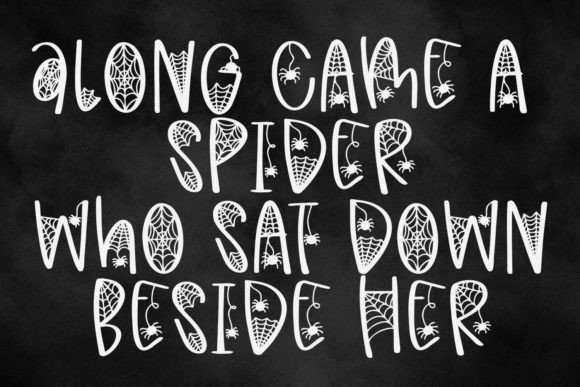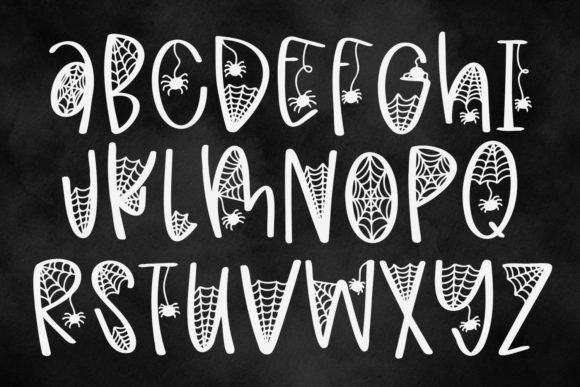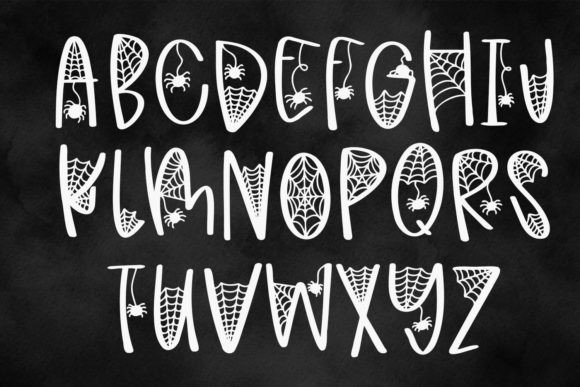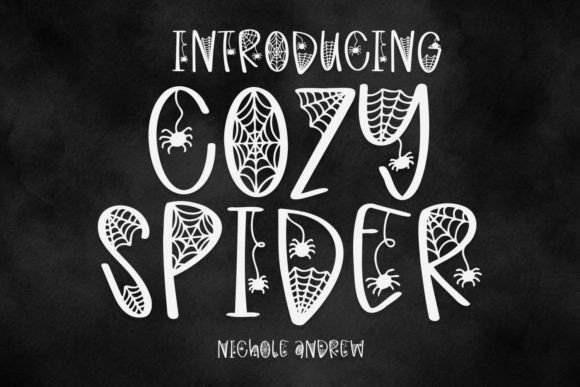
Introducing Cozy Spider Font: The Perfect Addition to Your Halloween Decorations
Are you looking for a unique and fun font to add a touch of personality to your Halloween projects? Look no further than Cozy Spider Font! This decorative font is perfect for designers and crafters who want to create spooky yet adorable designs that are sure to impress. In this article, we’ll take a closer look at Cozy Spider Font, its features, and how you can use it to take your Halloween projects to the next level.
What is Cozy Spider Font?
Cozy Spider Font is a fun and playful decorative font that features cozy little spiders and spider webs. This mostly caps-only font is designed to give your Halloween projects a fun and festive look that’s sure to delight. The font is perfect for creating eye-catching titles, headings, and other design elements that will make your projects stand out.
Key Features of Cozy Spider Font
- Unique Design: Cozy Spider Font features a unique design that combines cozy little spiders with spider webs, creating a fun and festive look that’s perfect for Halloween.
- Mostly Caps-Only: This font is mostly caps-only, making it perfect for creating bold and eye-catching titles and headings.
- Versatile: This font can be used for a wide range of Halloween projects, including party invitations, decorations, and more.
- Pair it with Other Fonts: Cozy Spider Font looks great when paired with other Halloween-themed fonts. Try pairing it with a bold sans-serif font for a fun and modern look.
- Use it for Titles and Headings: Cozy Spider Font is perfect for creating eye-catching titles and headings. Use it to add a touch of personality to your Halloween projects.
- Experiment with Colors: Cozy Spider Font looks great in a variety of colors, including orange, black, and purple. Experiment with different colors to find the perfect look for your project.
Ideas for Using Cozy Spider Font
Cozy Spider Font is a versatile font that can be used for a wide range of Halloween projects. Here are a few ideas to get you started:
- Halloween Party Invitations: Use Cozy Spider Font to create spooky yet adorable Halloween party invitations that will delight your guests.
- Halloween Decorations: Cozy Spider Font is perfect for creating Halloween decorations, such as signs, banners, and other DIY projects.
- Halloween Crafts: Use Cozy Spider Font to add a touch of personality to your Halloween crafts, such as pumpkin carvings, ghost decorations, and more.
Cozy Spider Font is a fun and decorative font that’s perfect for designers and crafters who want to add a touch of personality to their Halloween projects. With its unique design, easy-to-use features, and versatility, Cozy Spider Font is sure to become a favorite in your design arsenal. So why wait? Download Cozy Spider Font today and start creating spooky yet adorable Halloween projects that will delight your friends and family!